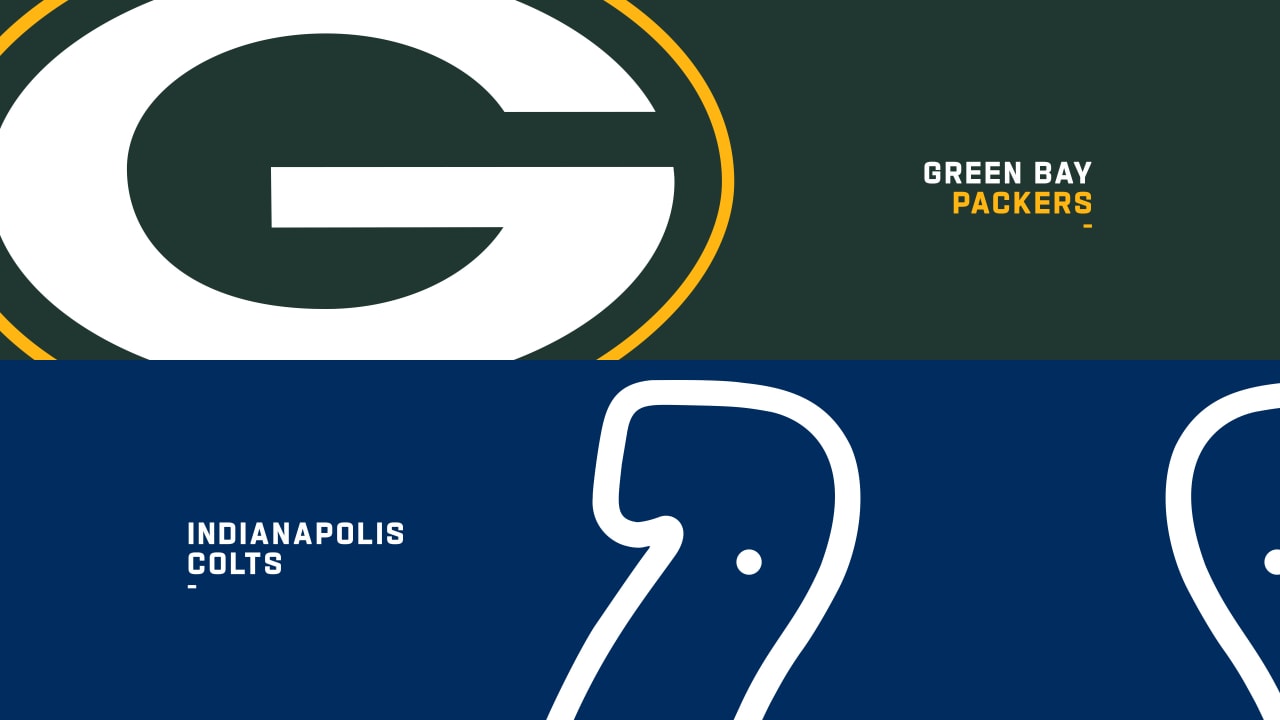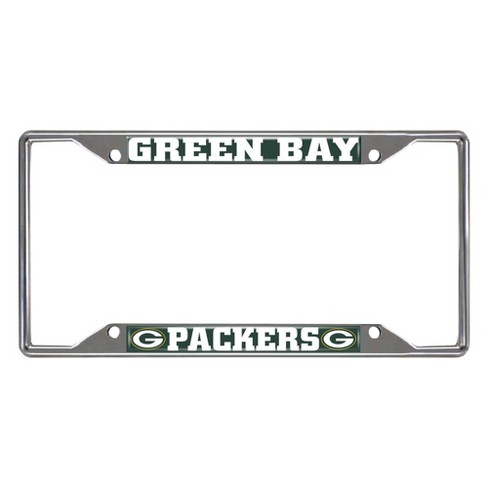
Green Bay Packers Font
What font does the green bay packers use for its football.
Jerk designed by nerfect type laboratories. Green bay packers logo green bay. A font based on the green bay packers logo.
Packers alternate logo packers primary logo packers concept. Green bay packers logo font. The packers wordmark is classic strong and steadfast.